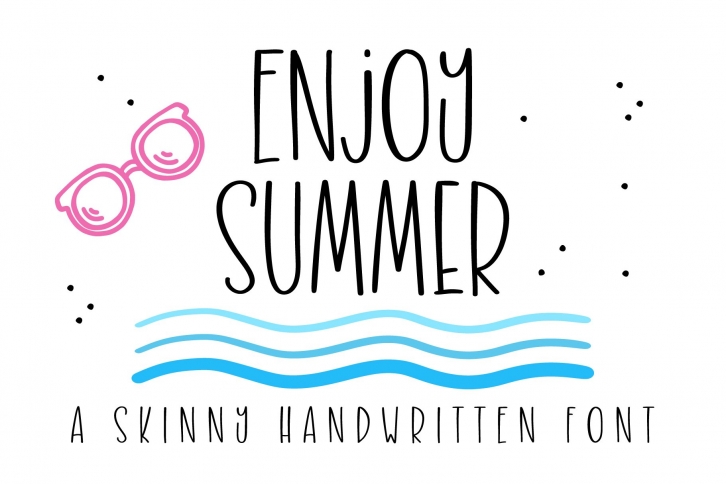
Enjoy Summer- A skinny handwritten is a trendy and unique font with an authentic style. It was designed by RungNoiStudio and it's a great choice for creative people who need such a font. It was released on April 7, 2021 and the file size is 1.50 MB. Enjoy Summer- A skinny handwritten will add an organic vibe to any design idea!